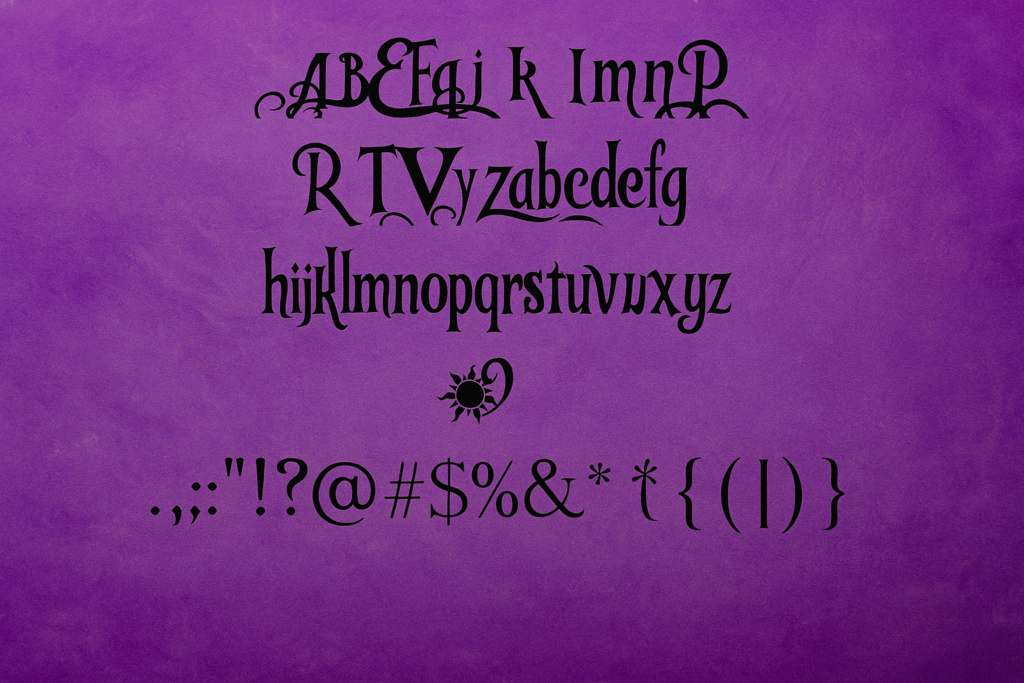
The Tangled font is as adventurous as the spirit of Disney’s animated film Tangled which it is named from making it enchanting among its viewers. Even the lanterns the girl uses or her carefree nature, it is purely magic and creativity that is seen in the movie. The unique feature I analyse is the Tangled font which is perfectly resembles the movie and its atmosphere to the greatest extent. If you are a designer, typographer or simply a creative person, you can get a nice and playful accent in your work using the Tangled font.
What is Tangled Font?
Tangled is a spectacular font we can describe as being based on the design of the popular Disney animation called Tangled. It reflects the fun and adventurous tone of the film, possible through using curly circles combined with letters reminiscent of Rapunzel’s long hair and the whimsical world she inhabits. The Tangled font is, in fact, not a true Disney font, but it appears quite similar to the style used for the feature movie’s title, so it is perfect for projects that need to have the same magical feel.
Some designers prefer the Tangled fonts, which have the same silk-like, beautiful, and young texture as well. Beginner designers might find, “Rapunzel” font similar to the Tangled font that provides an option for a similar mood and feel. These fonts are perfect for any project that could use some fun and daring touch.
Features of Tangled Font
The Tangled font boasts several distinctive features:
- Whimsical and Curly Design: The font’s fluid, curly design captures the free-spirited nature of the movie’s heroine. The elegant curves and loops add a playful, magical touch, making it perfect for fantasy-inspired projects.
- Elegant Yet Playful Letterforms: The Tangled font strikes a balance between elegance and playfulness. Its letterforms are neither too bold nor too delicate, making it versatile for both serious and light-hearted applications.
- Bold and Expressive Style: With bold strokes and flowing lines, the Tangled font demands attention. It’s ideal for headers or any design element that needs to stand out.
- Magical, Fantasy-Inspired Look: The font evokes a sense of fantasy and adventure, making it perfect for designs that aim to capture the wonder and imagination central to the Tangled movie.
Applications of Tangled Font
The Tangled font is versatile and can be used in a variety of design applications, enhancing your projects with its unique flair. Here are some common uses:
- Branding for Fantasy-Themed Products: The Tangled font is ideal for products or services related to fantasy, adventure, or magic. It works well in designs for children’s books, merchandise, and theme parks, helping to convey a whimsical, magical feel.
- Event Invitations: With its playful and elegant qualities, the Tangled font is perfect for event invitations, especially for children’s parties or fantasy-themed events. It adds excitement and joy to the overall design.
- Social Media Graphics and Posters: The bold and whimsical nature of the Tangled font makes it an excellent choice for social media graphics and posters. It grabs attention and adds a magical touch to digital media.
- Personal Projects: Whether you’re scrapbooking, creating greeting cards, or working on DIY projects, the Tangled font adds a fun, magical element to your designs, giving them charm and personality.
Conclusion:Tangled font
Tangled font is perfect for designers who want to sprinkle a touch of magic, fairy dust, and adventure into their projects. Whether you’re working on branding materials, invitation cards, or even personal creations, this typeface brings a playful yet sophisticated charm that instantly elevates your design. Its timeless design elements and expressive style allow the font’s application in various fields.